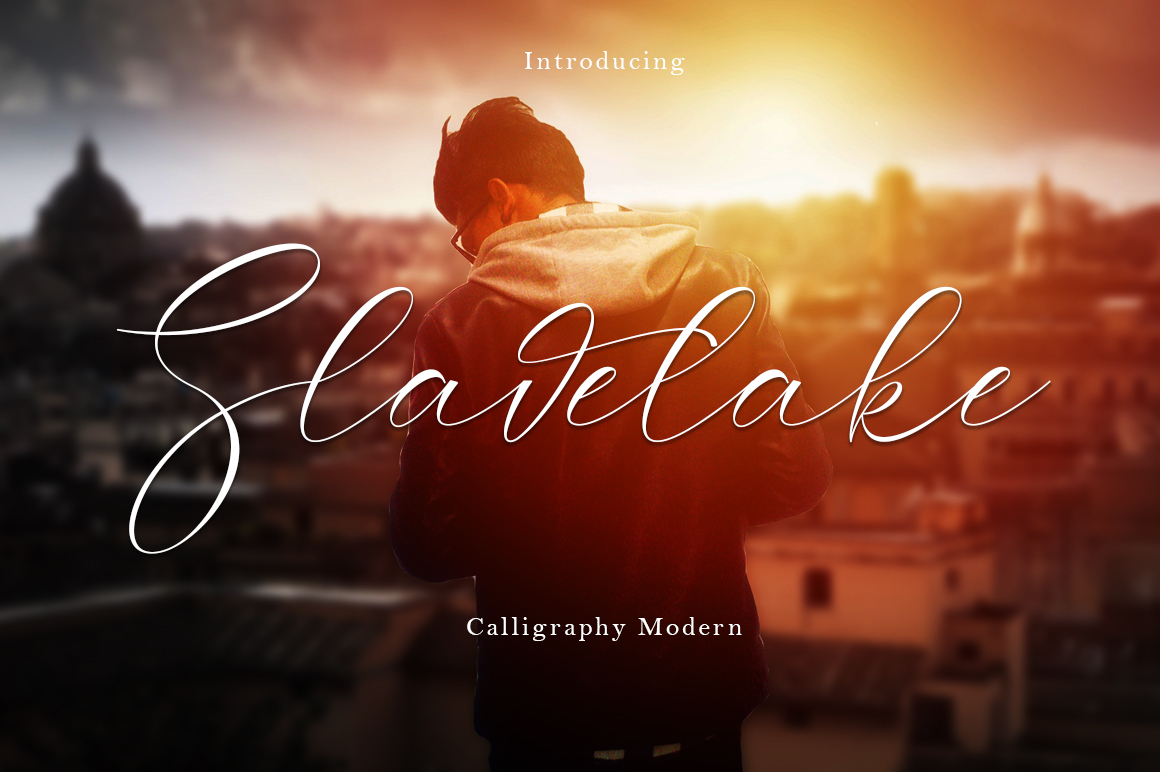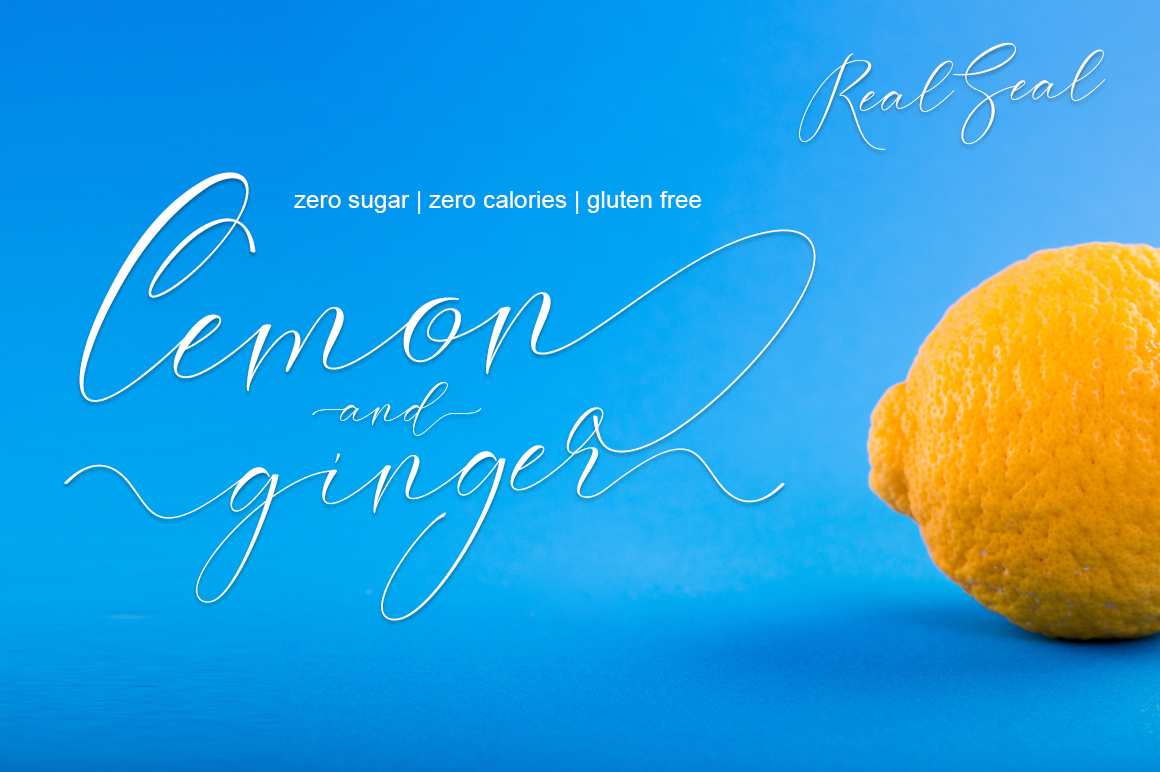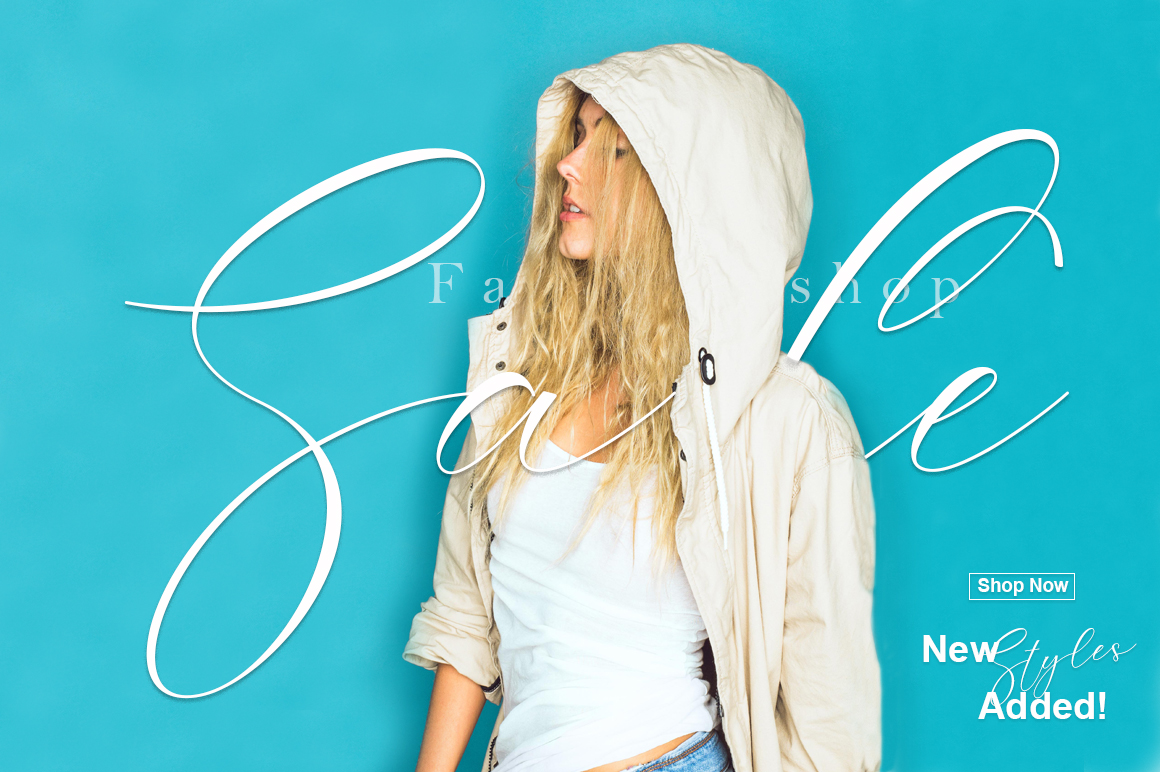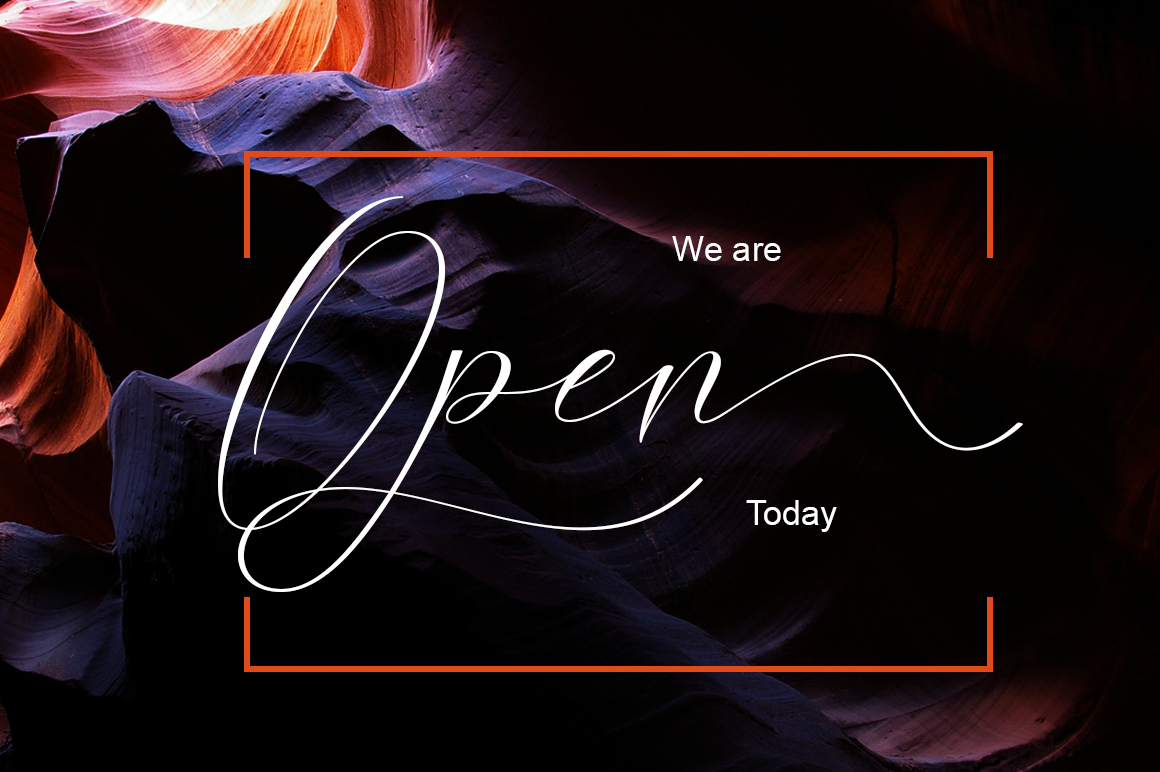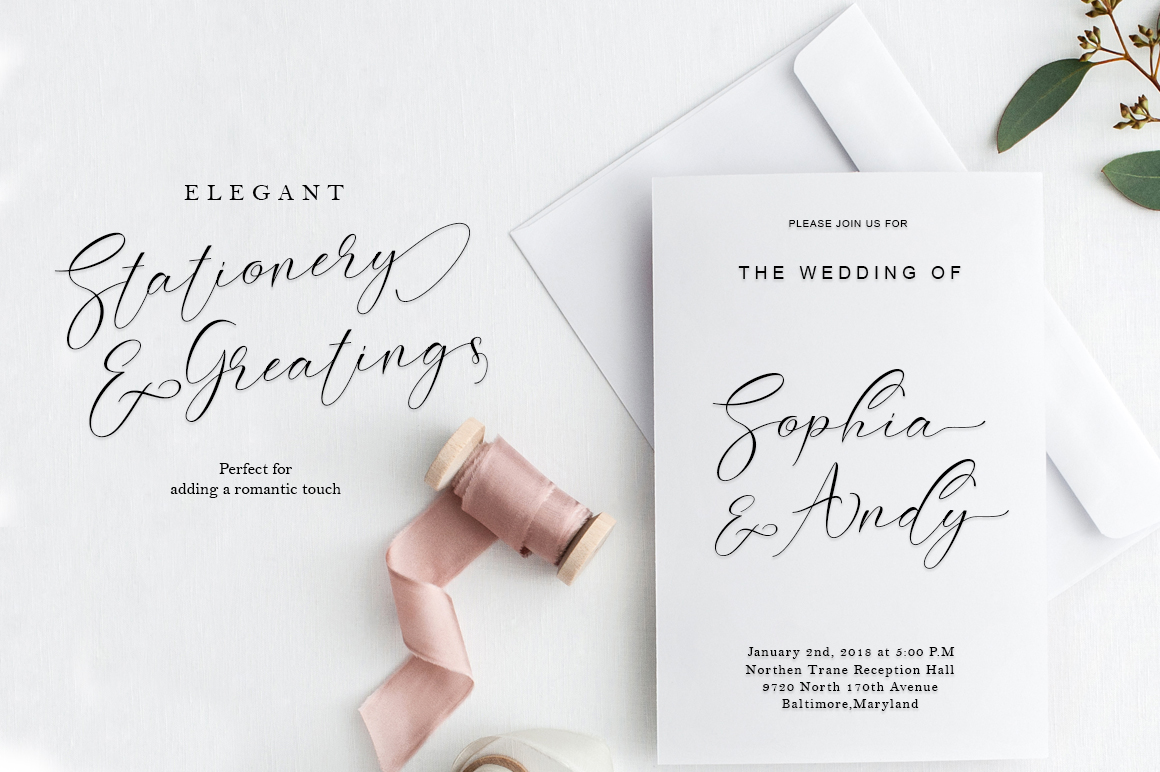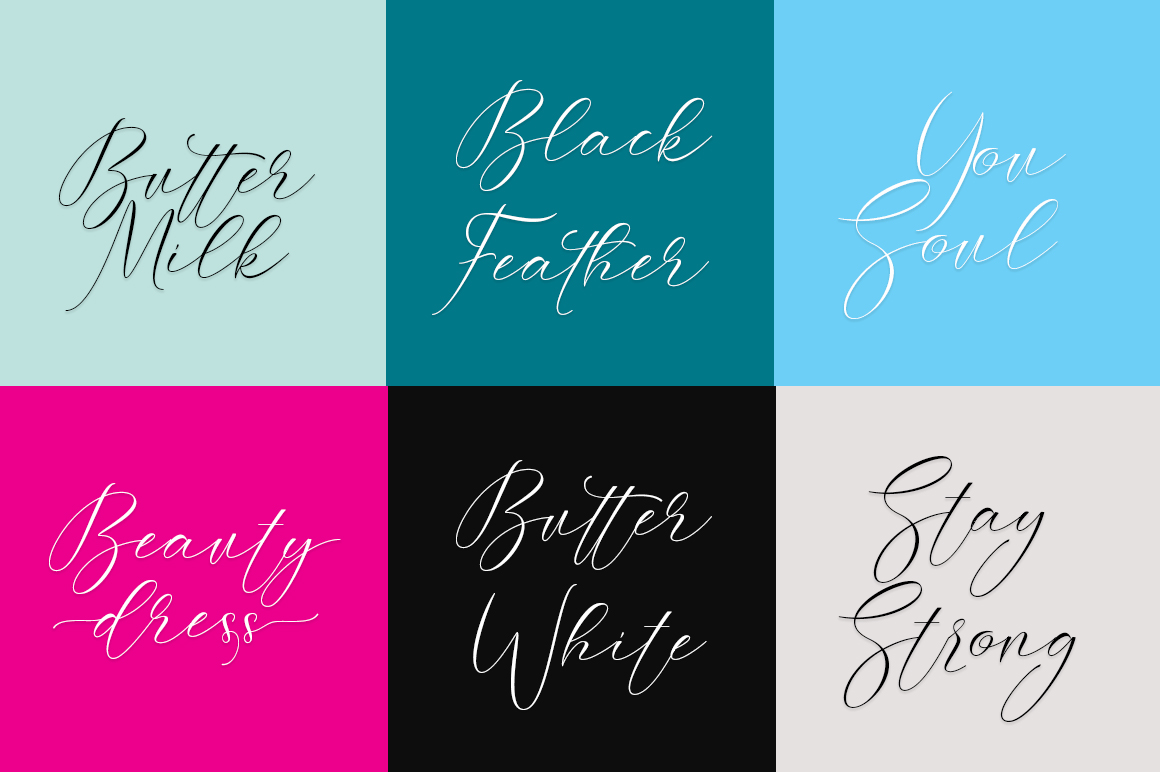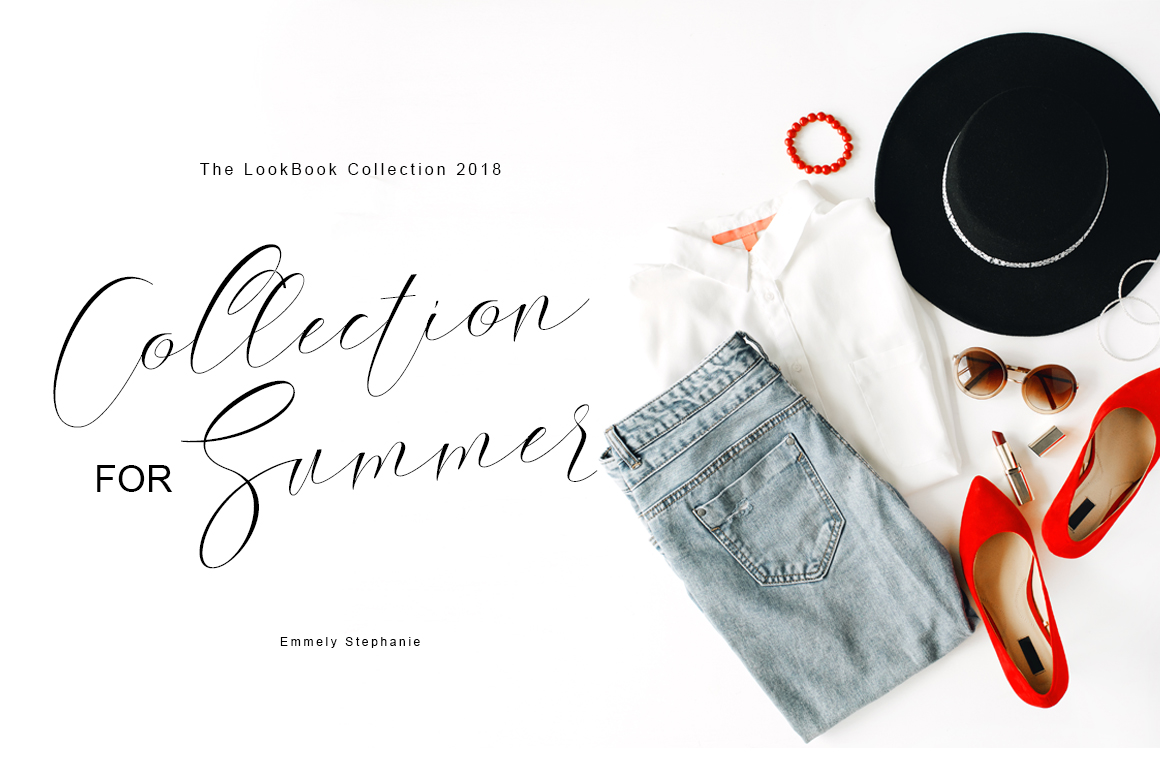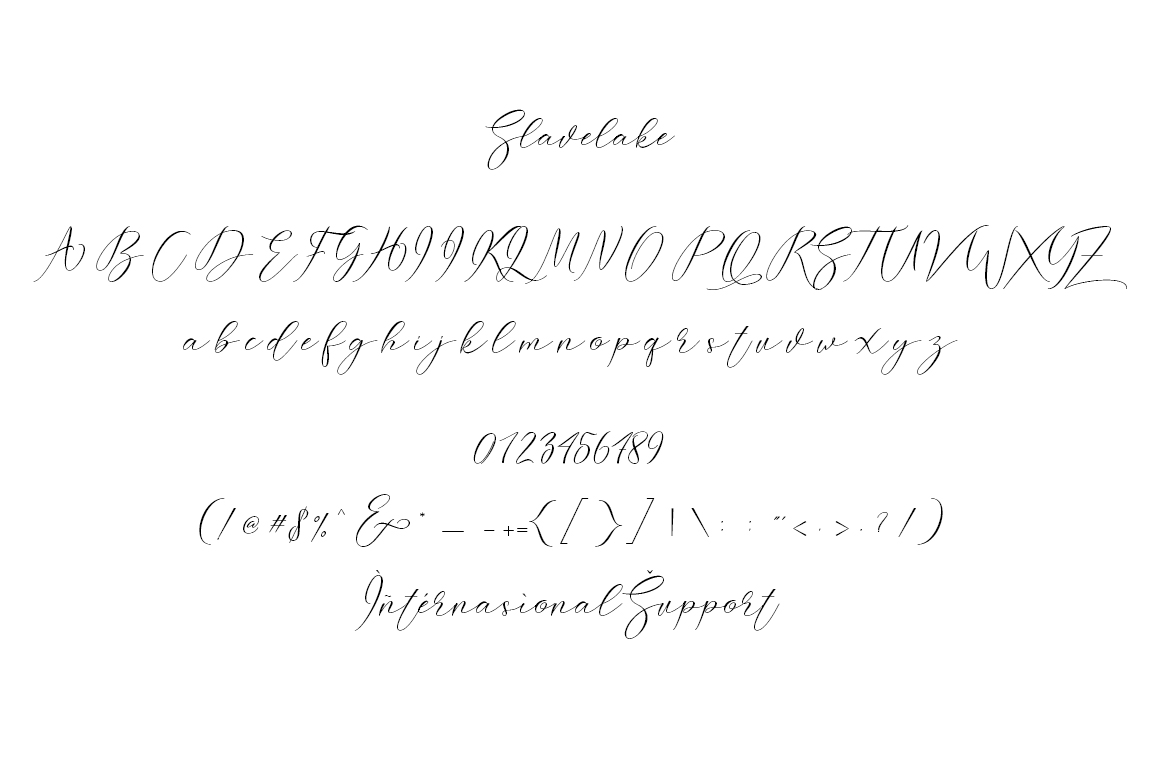
Slavelake Font
About Slavelake Font
Slavelake Script is a modern calligraphic-style script font.
It’s packed with swashes & ligatures and comes with 336 unique glyphs. Will add a unique touch to any design in an instant.